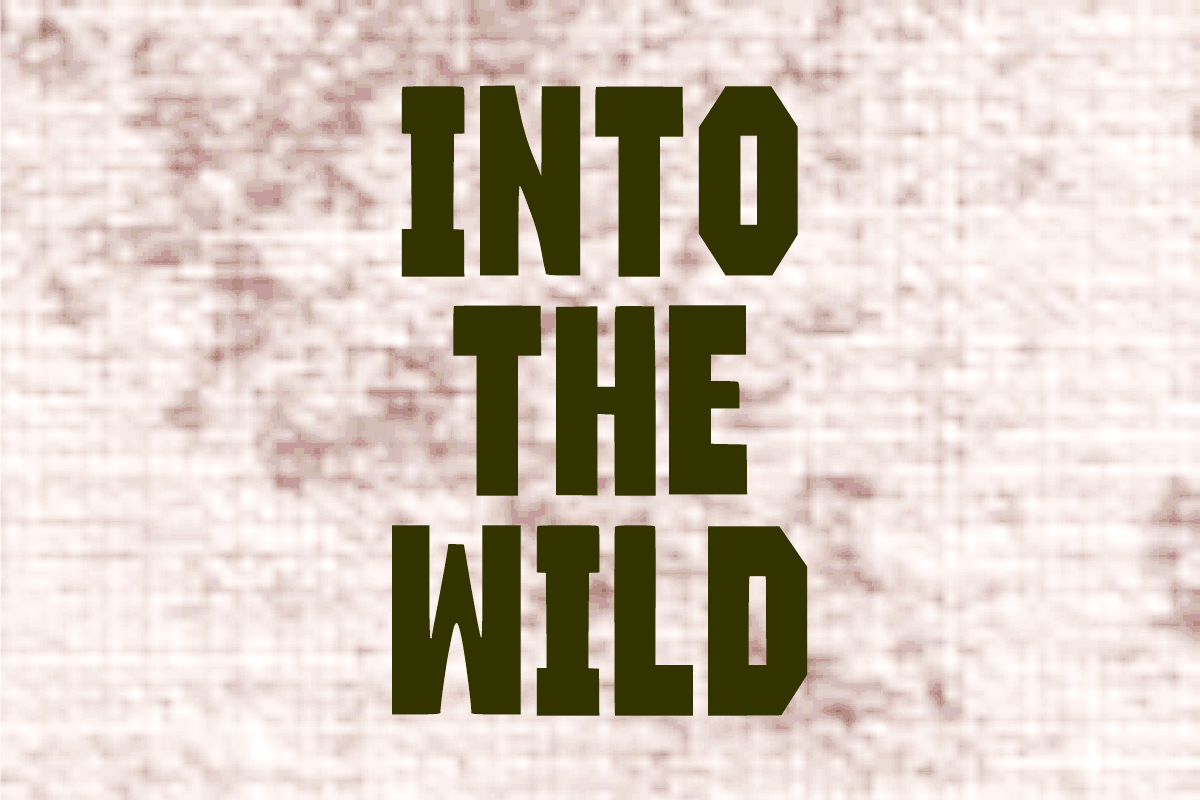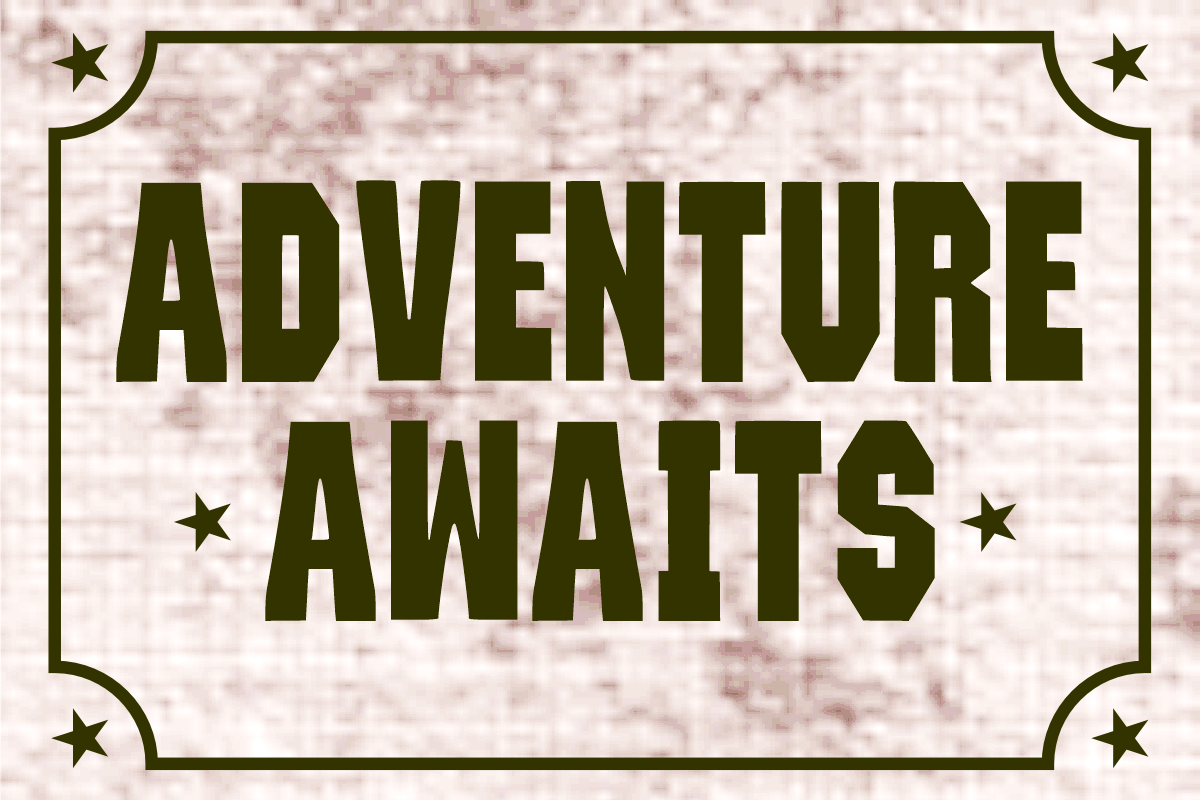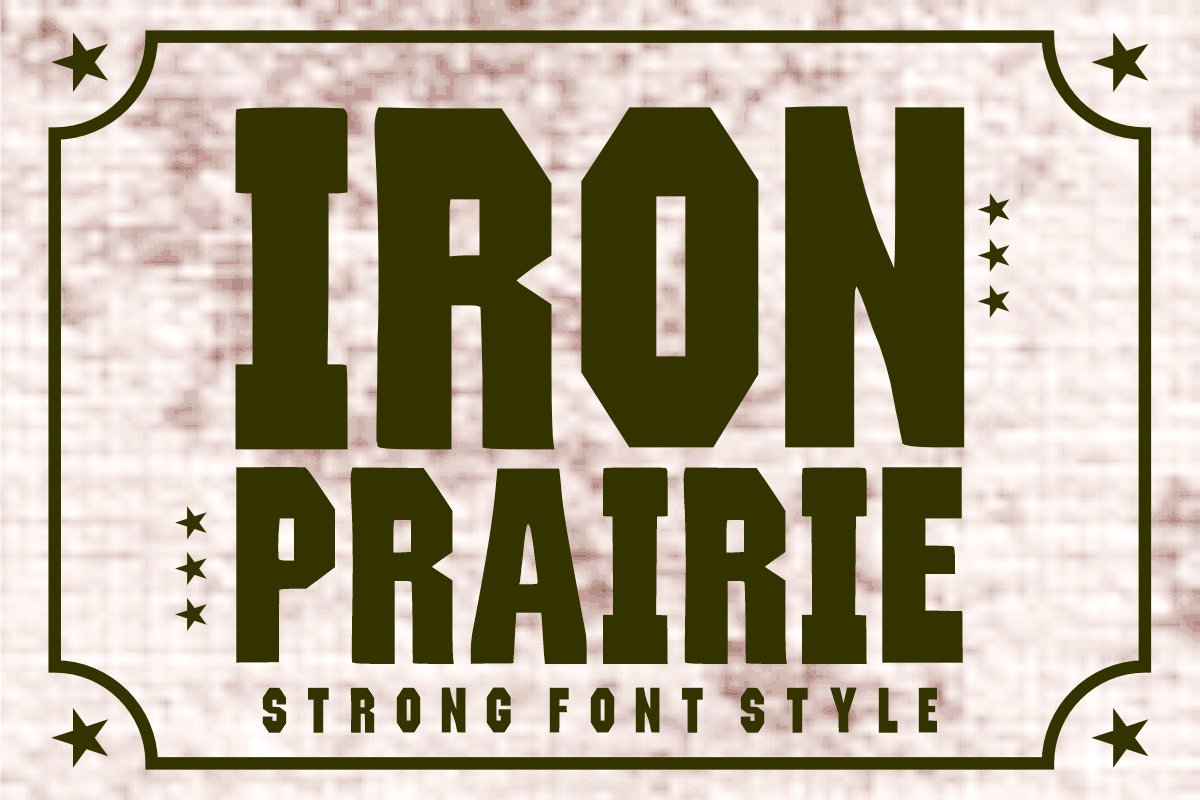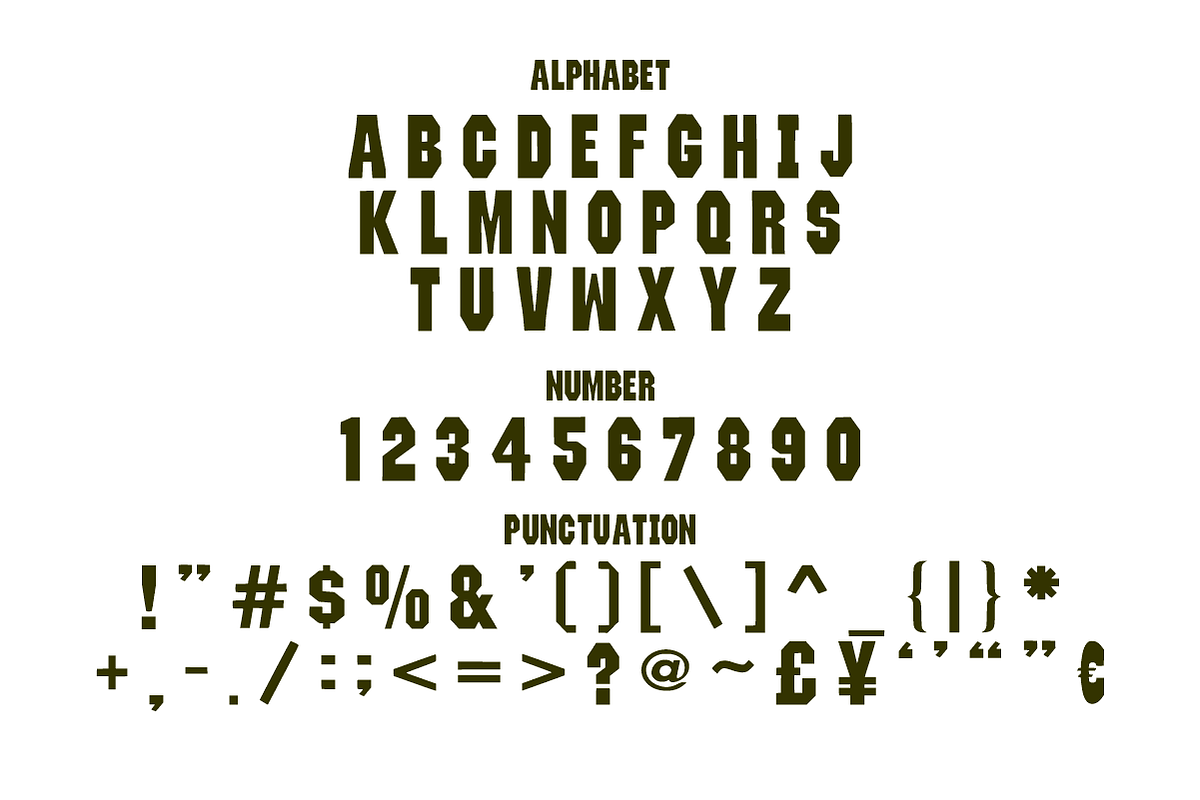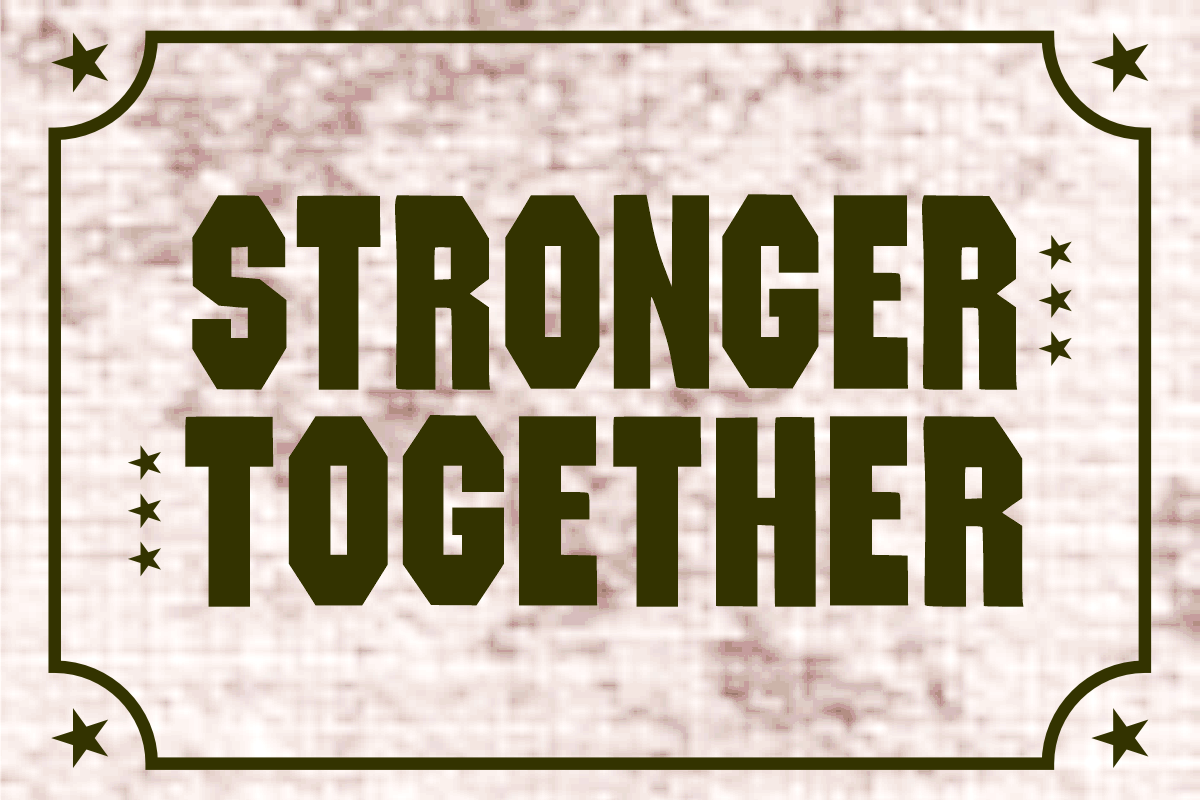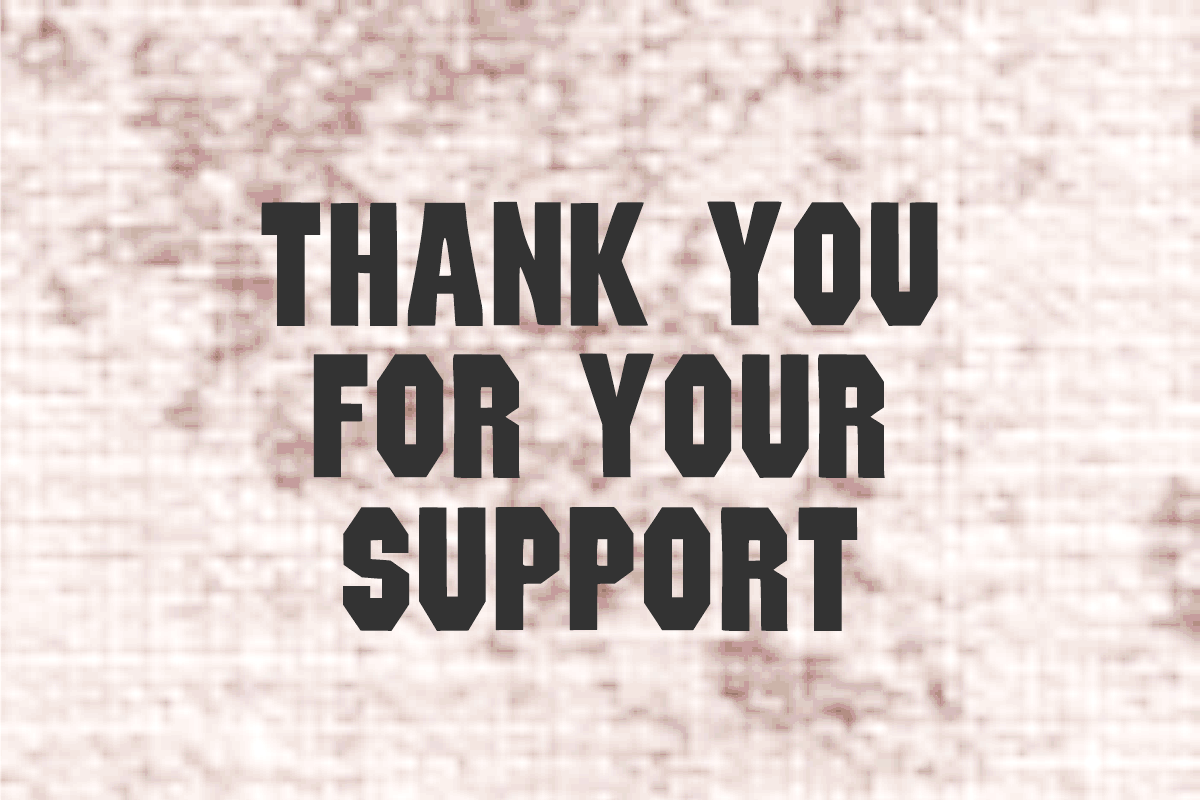
Iron Prairie - Strong Display Font
🌲 Hey Fellow Creators! Meet Iron Prairie - The Ultimate Strong Display Font! 🔨
Looking to give your designs an undeniable presence with a rugged, solid, and timeless look? Iron Prairie is a premium heavy display font featuring bold block shapes, sharp cuts, and an industrial-meets-western soul. It’s built to deliver maximum impact while keeping your layouts clean and incredibly professional!
It’s powerful, authentic, and meticulously crafted for designers who want their headlines and merchandise to command respect.
✨ What’s Packed in the Box:
_ 🔠 _\Bold Uppercase Letters (A-Z)\\* – Strong, tall block characters with massive visual weight.
_ 🔢 _\Matching Numbers (0-9)\\* – Perfect for sports jerseys, vintage years, or industrial pricing.
_ 🔣 _\Simple Symbols & Punctuation\\* – Essential basics to round up your custom text layouts.
🎯 Perfect For Your Next Best-Selling Project:
\* 👕 Rugged T-Shirts, Workwear Aesthetics, Outdoor Hoodies & Cap Designs
\* 🪵 Craft Brewery Labels, Coffee Roaster Logos, Gym Branding & Badges
\* 🎨 Clean SVG Cut Files for Cricut & Silhouette (Super bold lines make weeding a breeze!)
\* 📜 Vintage Event Posters, Adventure Magazines, and Powerful Social Media Headers